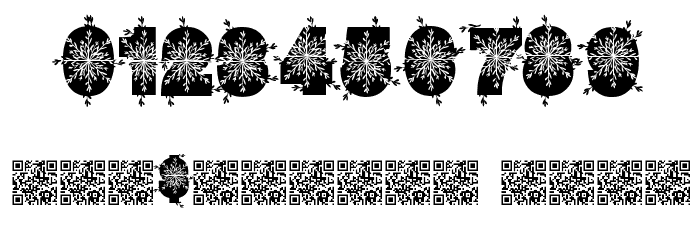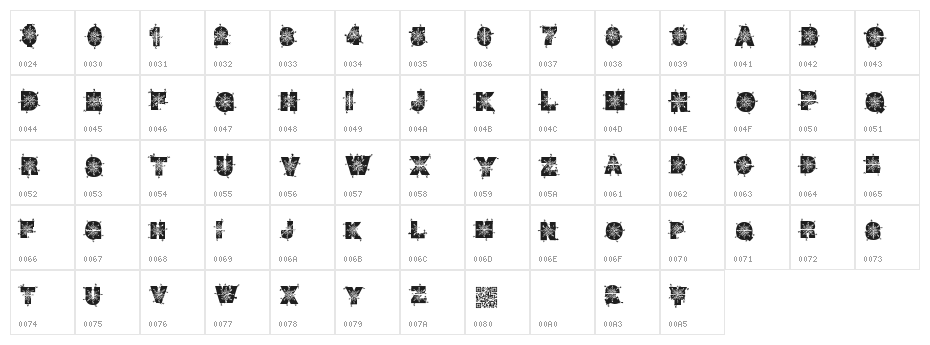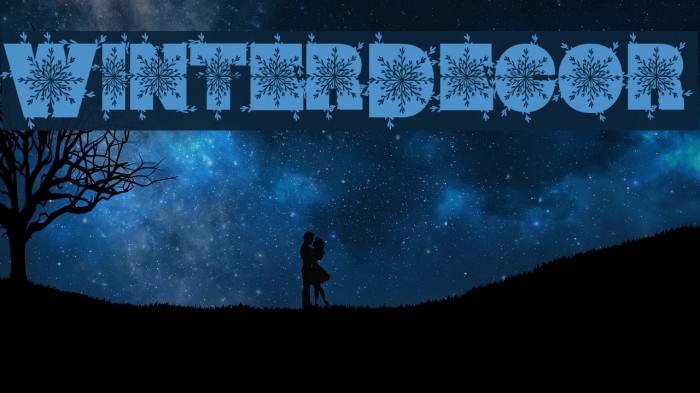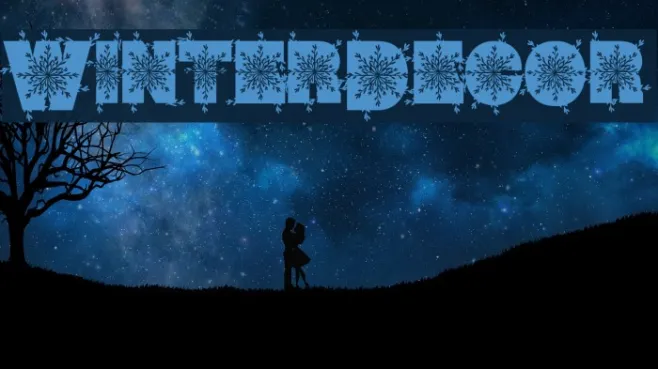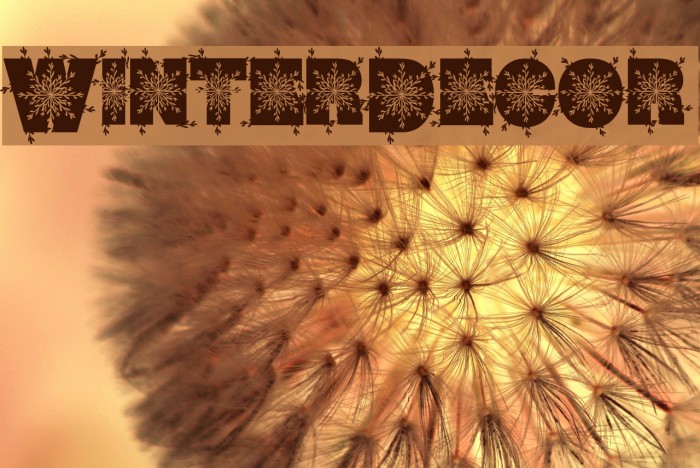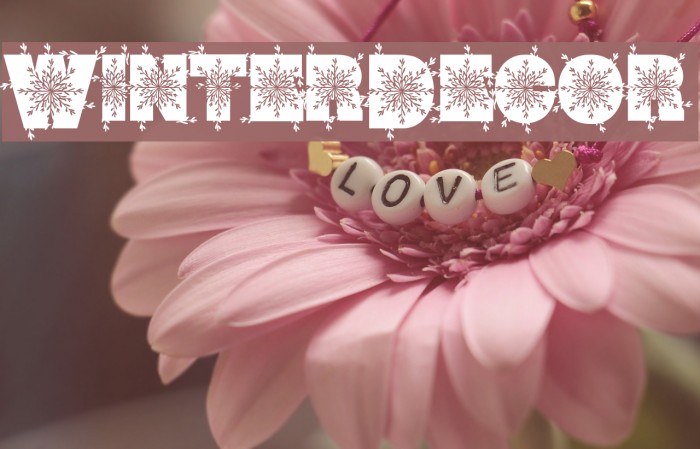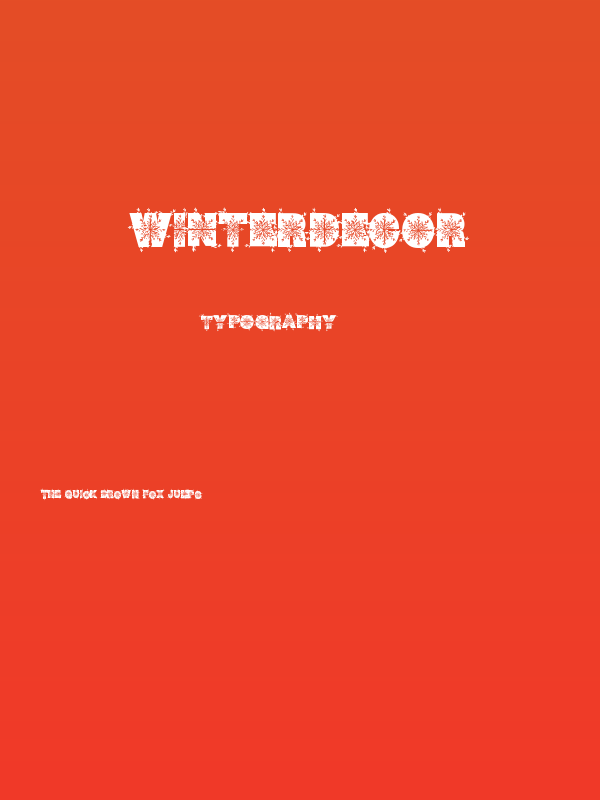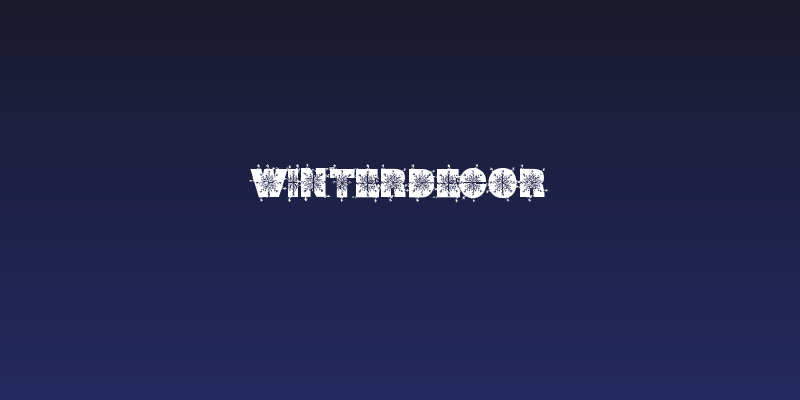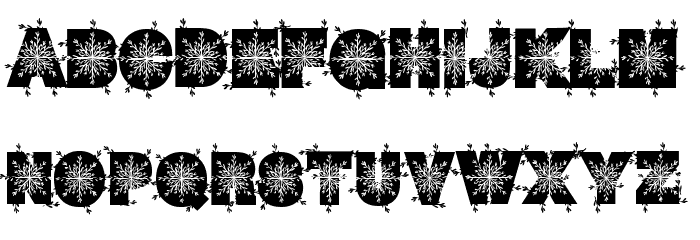
WinterDecor Font
WinterDecor Description
This decorative font features bold, blocky letters adorned with intricate snowflake patterns, creating a festive and winter-themed appearance. The characters are uniformly wide, with each letter showcasing a detailed snowflake design that adds a unique texture and visual interest. The font maintains a consistent weight and width across all characters, ensuring a cohesive look. The high contrast between the thick letterforms and the delicate snowflake details enhances readability while maintaining its decorative appeal. This font is perfect for seasonal projects, holiday cards, and winter-themed designs, offering a playful yet elegant style.
| Use Case | Headlines, Logos, Seasonal Designs |
| Proposed Projects | Ideal for holiday cards, winter event invitations, seasonal branding, and festive posters. |